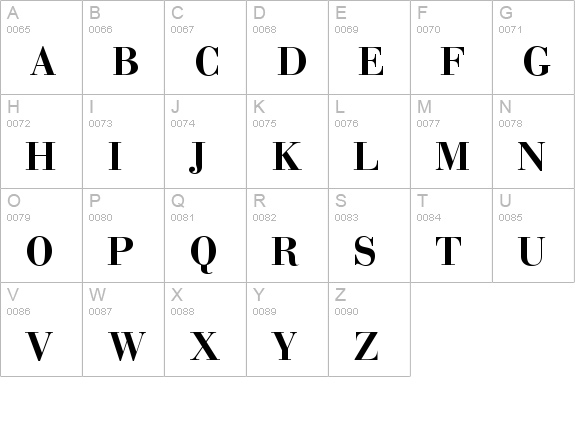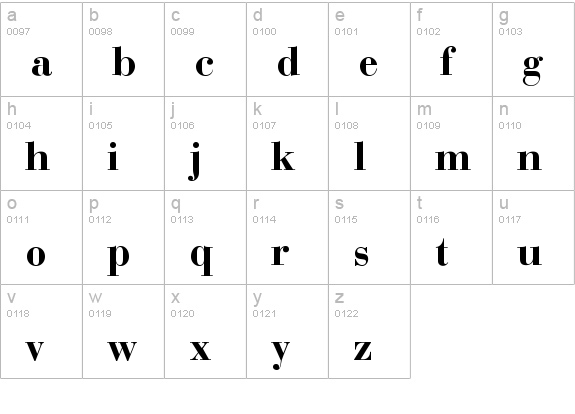
Bauer Bodoni Bold Font Details
Bauer Bodoni Bold is a strong, high-contrast variant in the Bauer typeface family \xE2\x80\x94 well suited to headlines, attention-grabbing titles, and strong calls-to-action.
Bauer Bodoni Bold font exudes timeless elegance and sophistication with its bold and striking design. This classic typeface, known for its high contrast and delicate serifs, commands attention and makes a powerful statement in any text layout. The Bauer Bodoni Bold font is perfect for creating impactful headlines, titles, and branding materials that demand to be noticed. And the best part? Bauer Bodoni Bold font is available for free download at FontsMarket.com, making it accessible to designers and creatives looking to add a touch of luxury and refinement to their projects without breaking the bank. Don't miss out on this opportunity to enhance your designs with the timeless beauty of Bauer Bodoni Bold font.